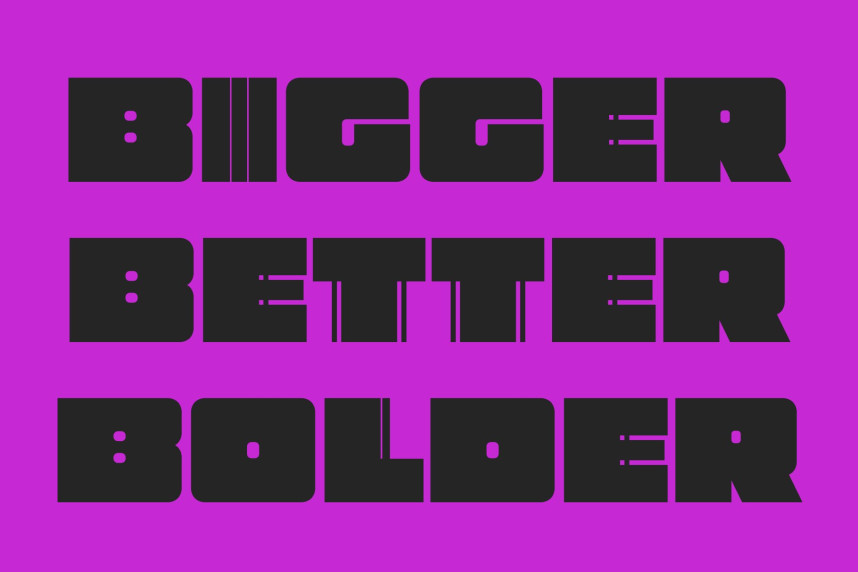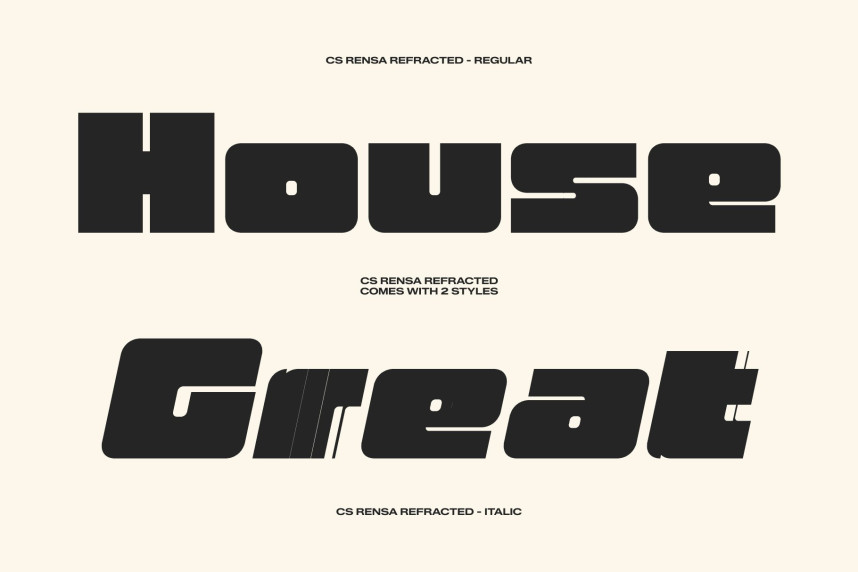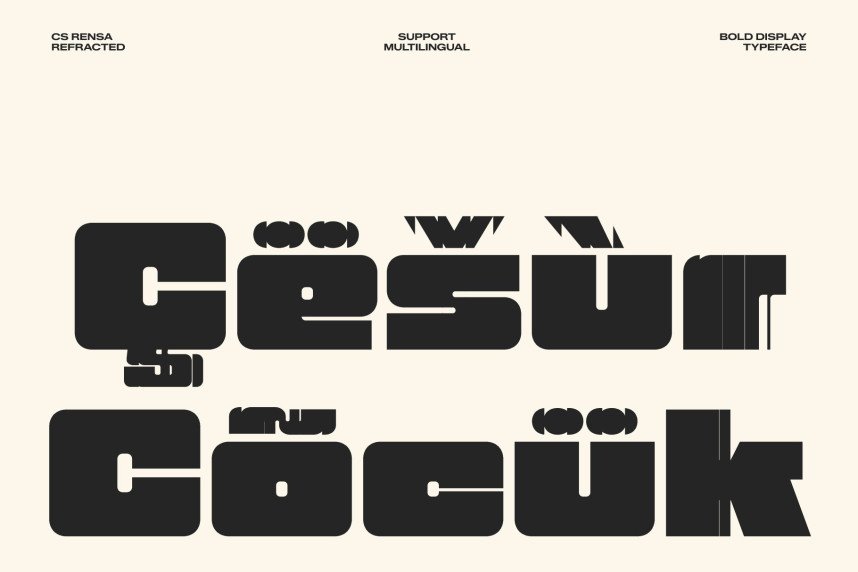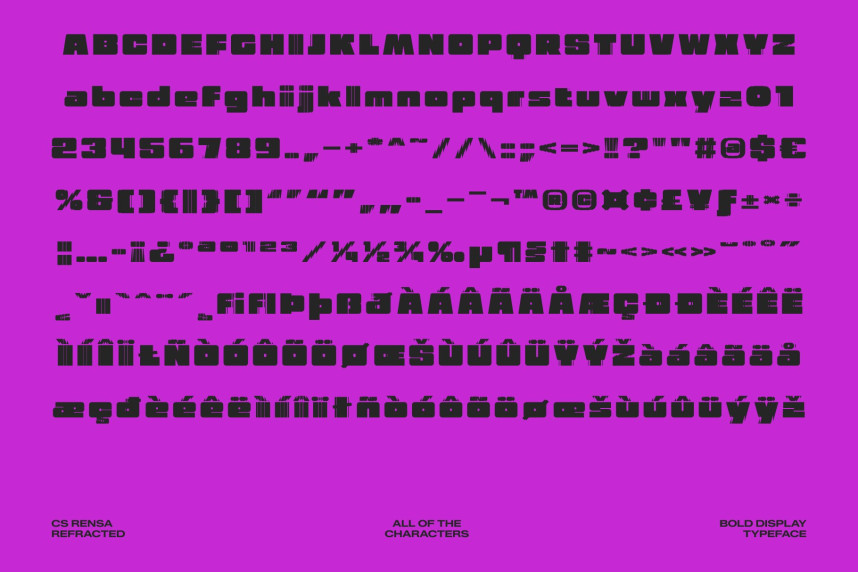
CS Rensa Refracted Font
CS Rensa Refracted Font – Bold Geometric Sans Serif Font: Maximum Impact with Futuristic Distortion
Strong Geometric Structure Built for Visual Dominance
This is a bold geometric sans serif font designed to command attention with confidence and precision. Its solid blocky forms, sharp construction, and balanced proportions create a striking visual presence that instantly captures the eye. Every character is carefully crafted to feel powerful and intentional, making the typeface ideal for designs that require typography to lead the composition.